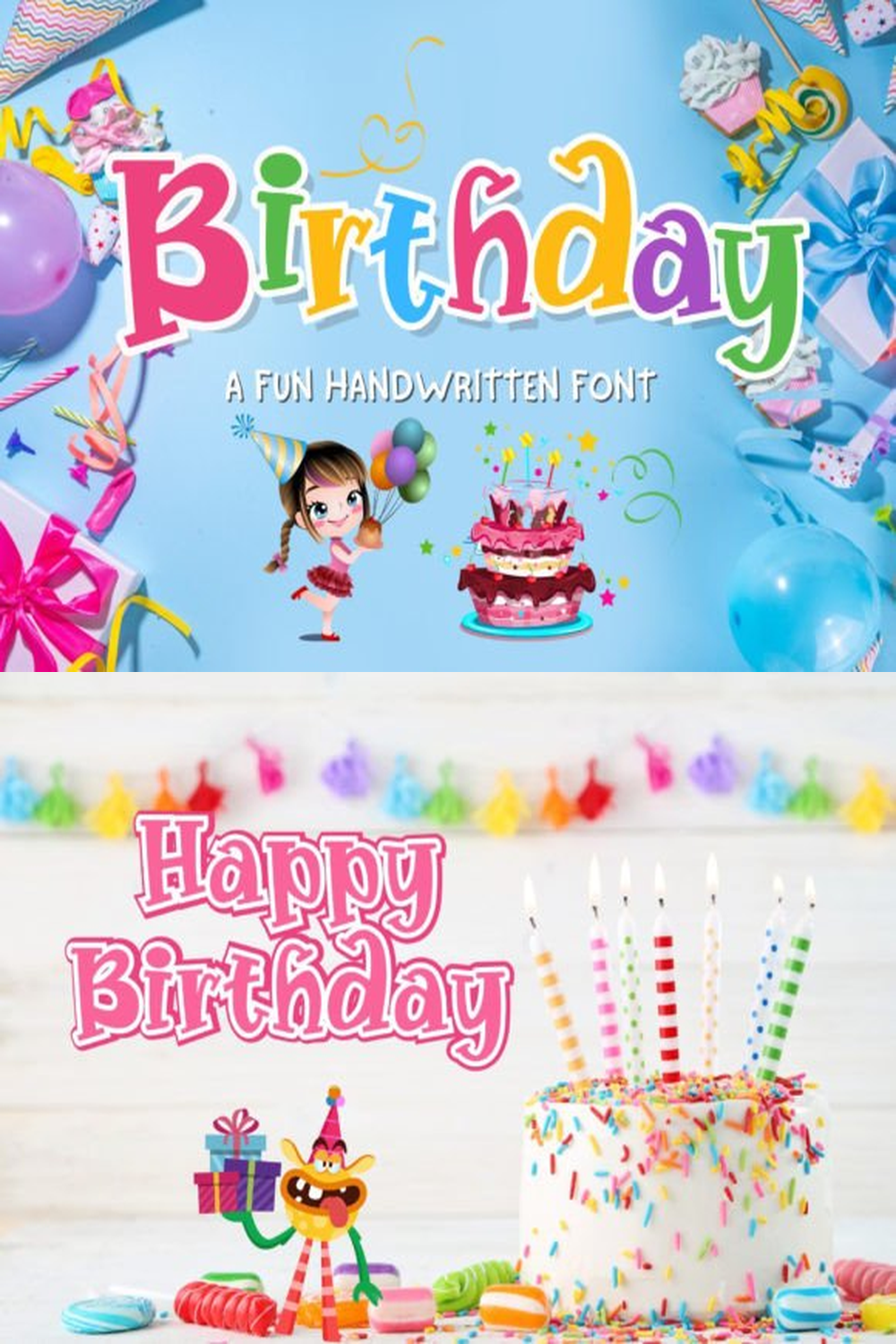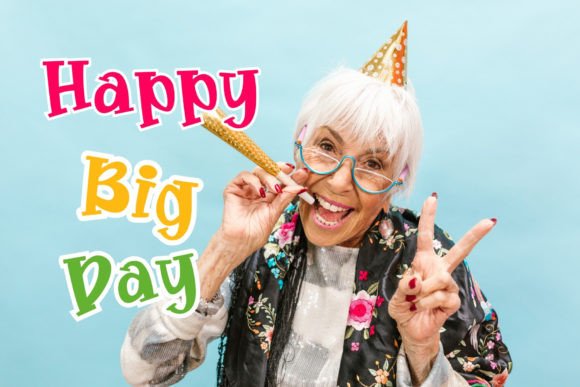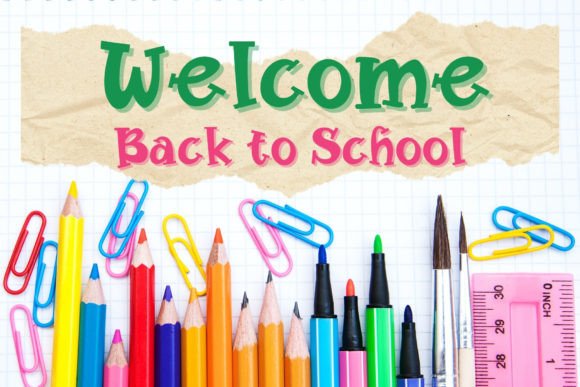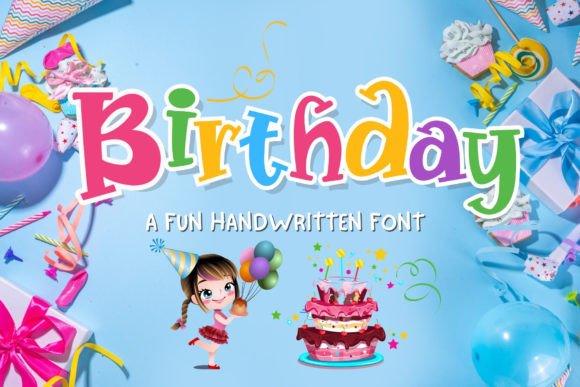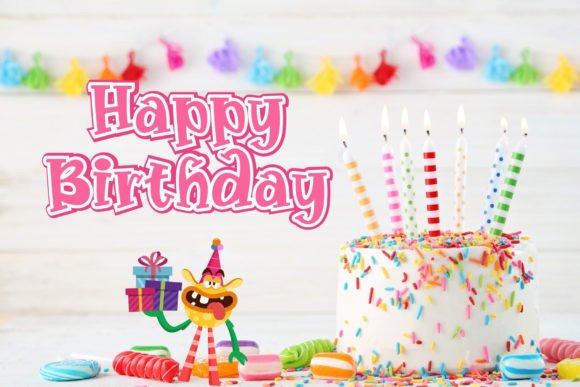
About the Birthday Font
Add a touch of class to your work with the Birthday Font, a truly exceptional typeface. Birthday is a sweet and cute font that exudes joy and is adorable! Full of relaxed charm, it is perfect for a variety of design environments. Its playful touch makes it an ideal choice for children’s t-shirts, helping every wearer look sparkling.